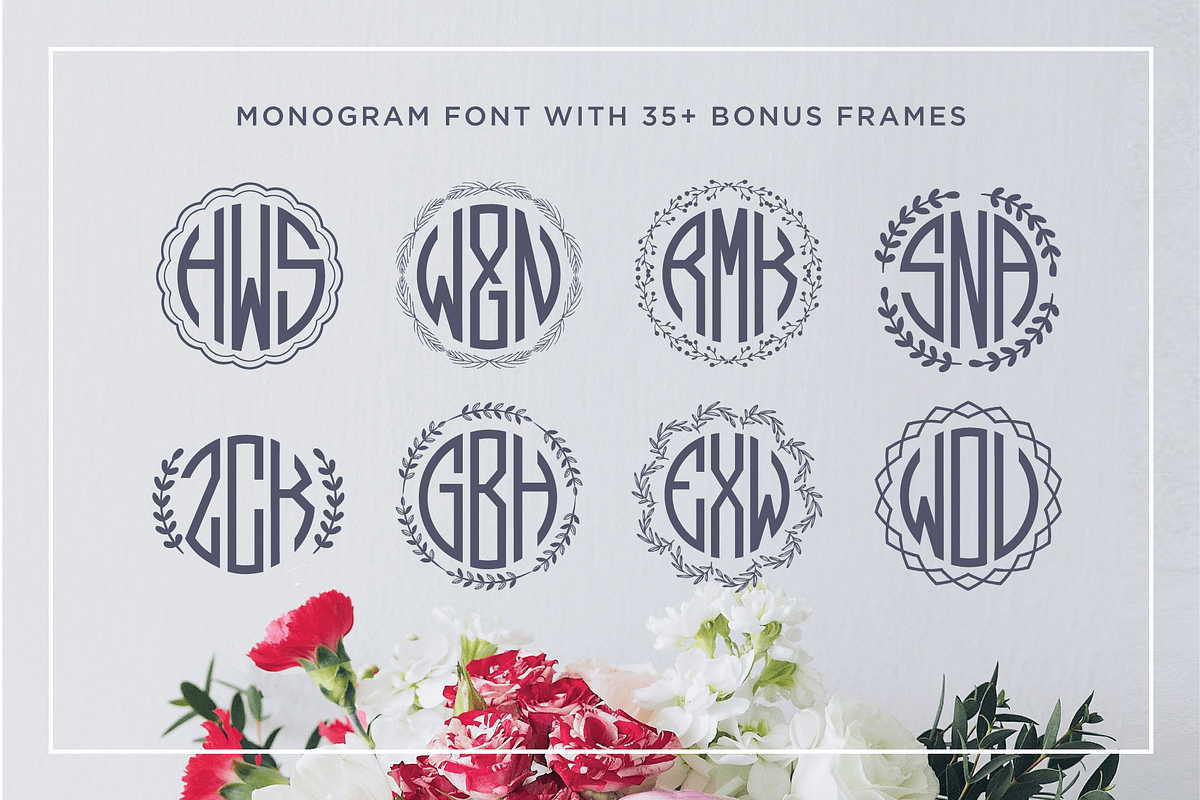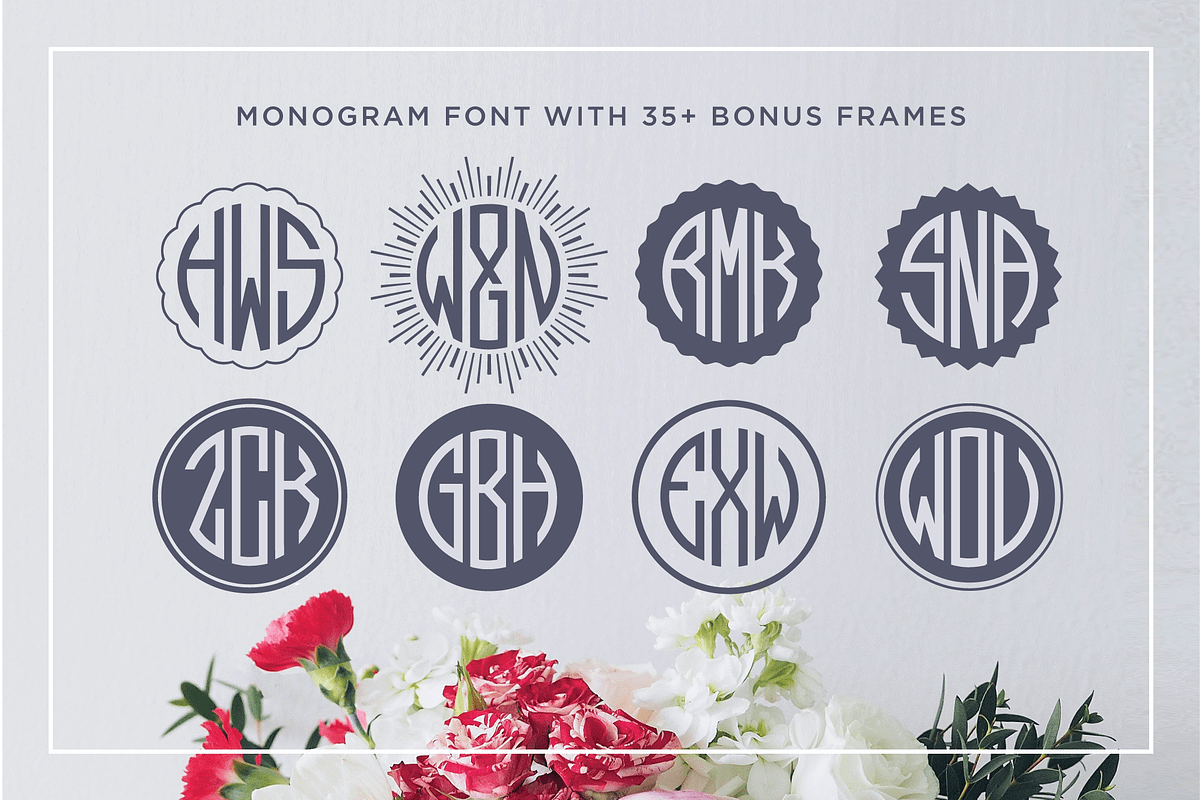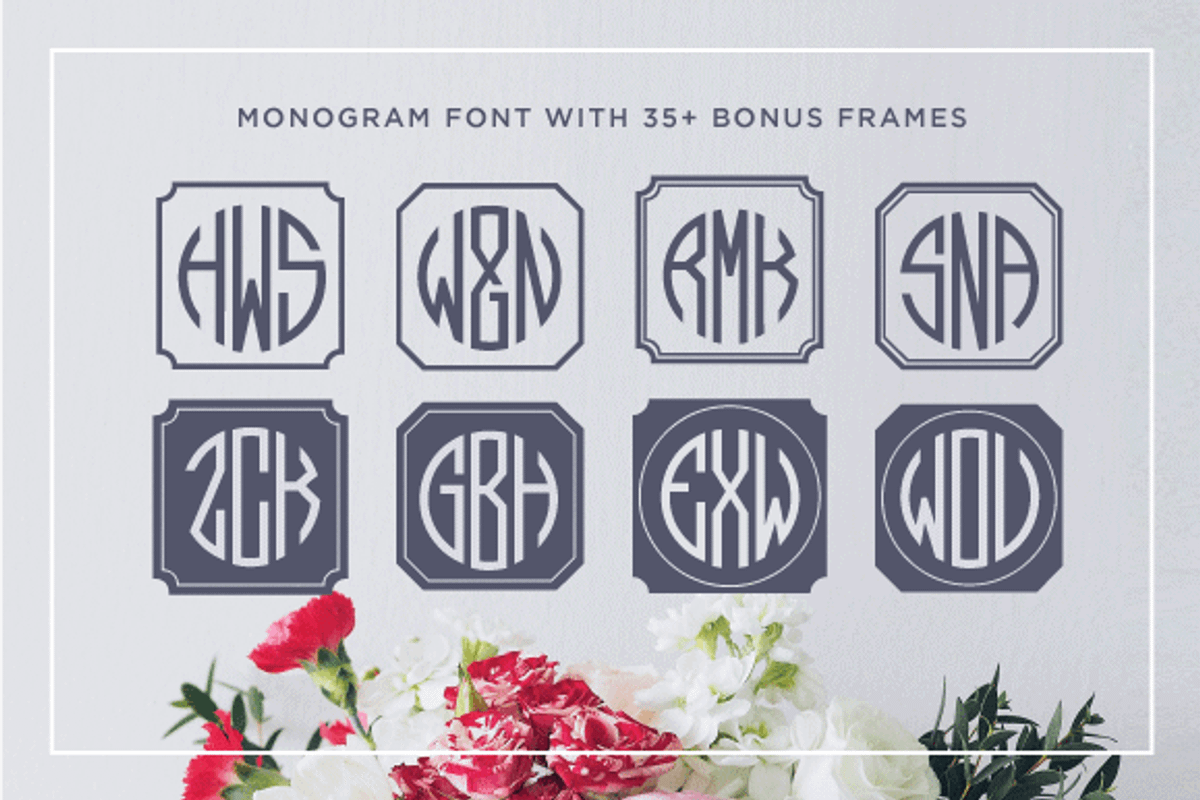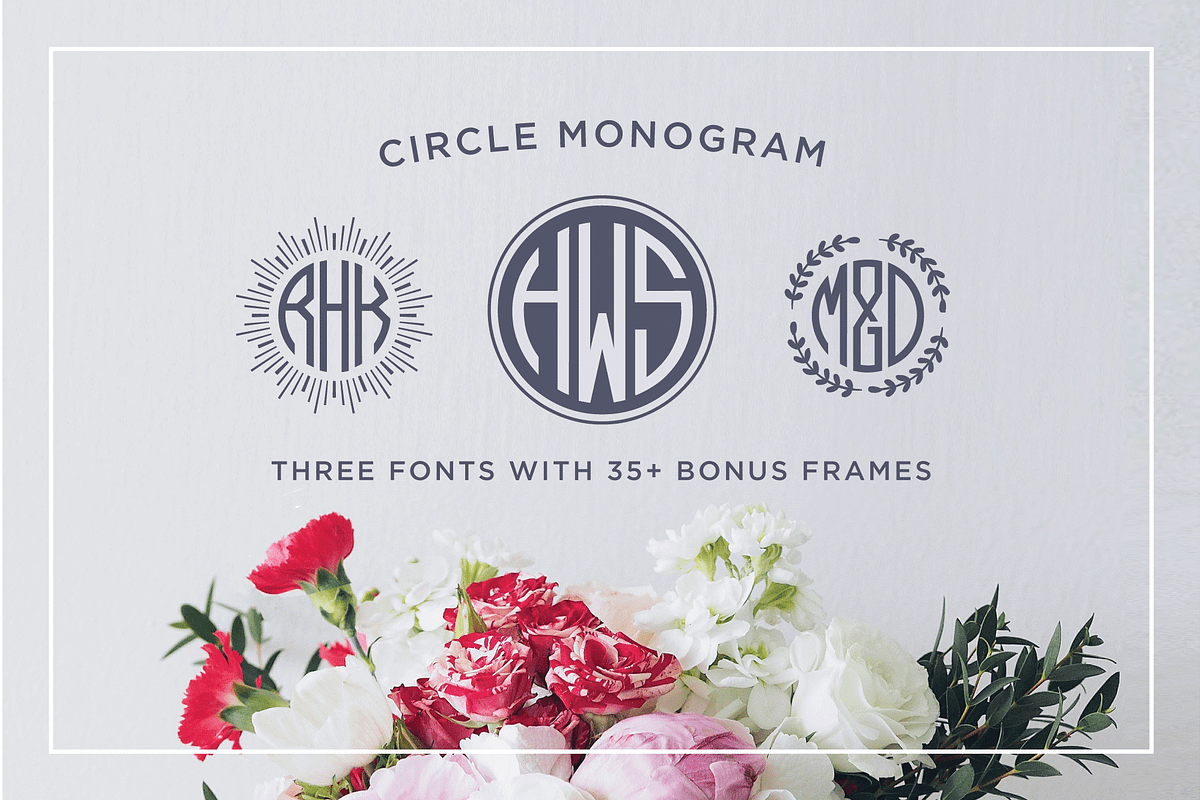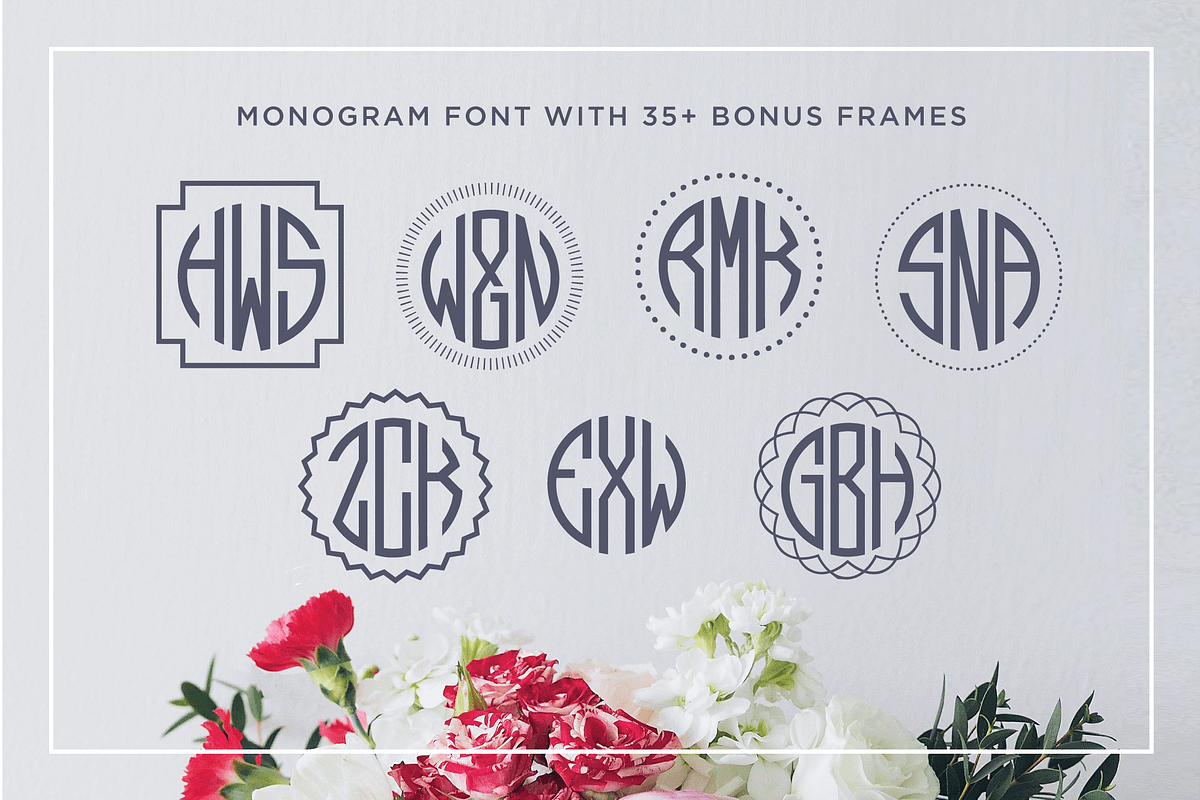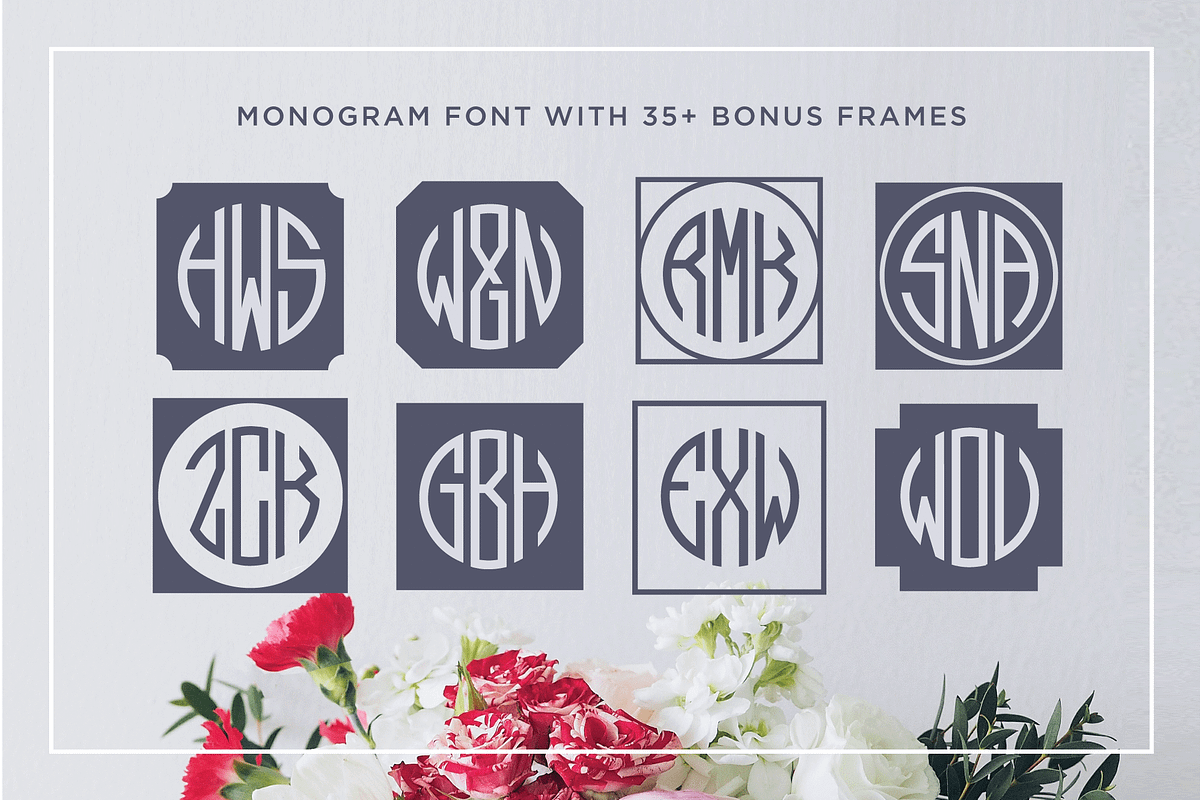
Circle Monogram Font
Make gorgeous three letter circle monograms quickly and easily in any program, even Word or Pages.
CIRCLE MONOGRAM is a trendy monogram set suitable for wedding invitations, branding, stationery, blog design, custom art, custom stamps, custom embossers, or any design purpose.
Monogram Left (TTF & OTF) - for the LEFT LETTERS of the monogram
Monogram Center (TTF & OTF) - for the CENTER LETTERS of the monogram
Monogram Right (TTF & OTF)- for the RIGHT LETTERS of the monogram
Plus a special BONUS FONT Monogram Frames (TTF & OTF) --- 35+ Round and square Frames